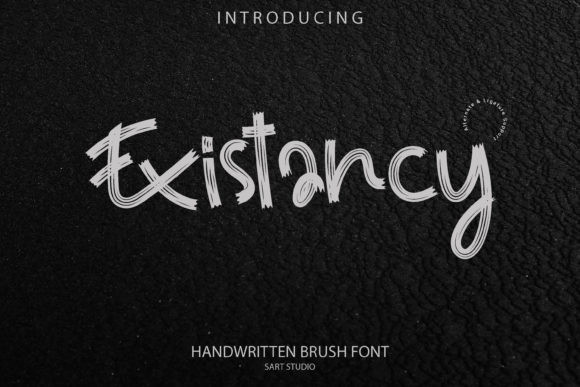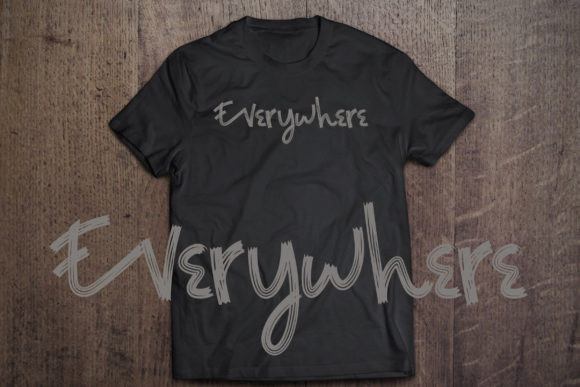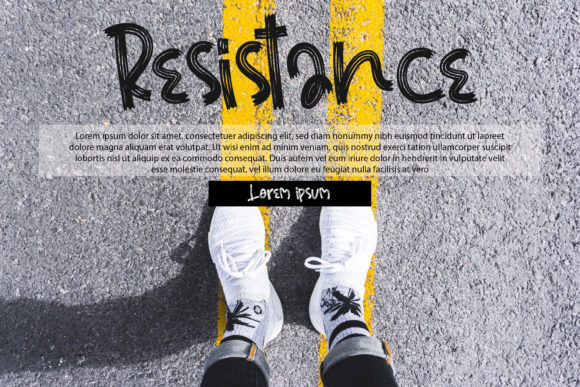
Existancy Font
Existancy is a unique and interesting display font. A little bit quirky, this font looks incredibly adept on a wide variety of contexts!